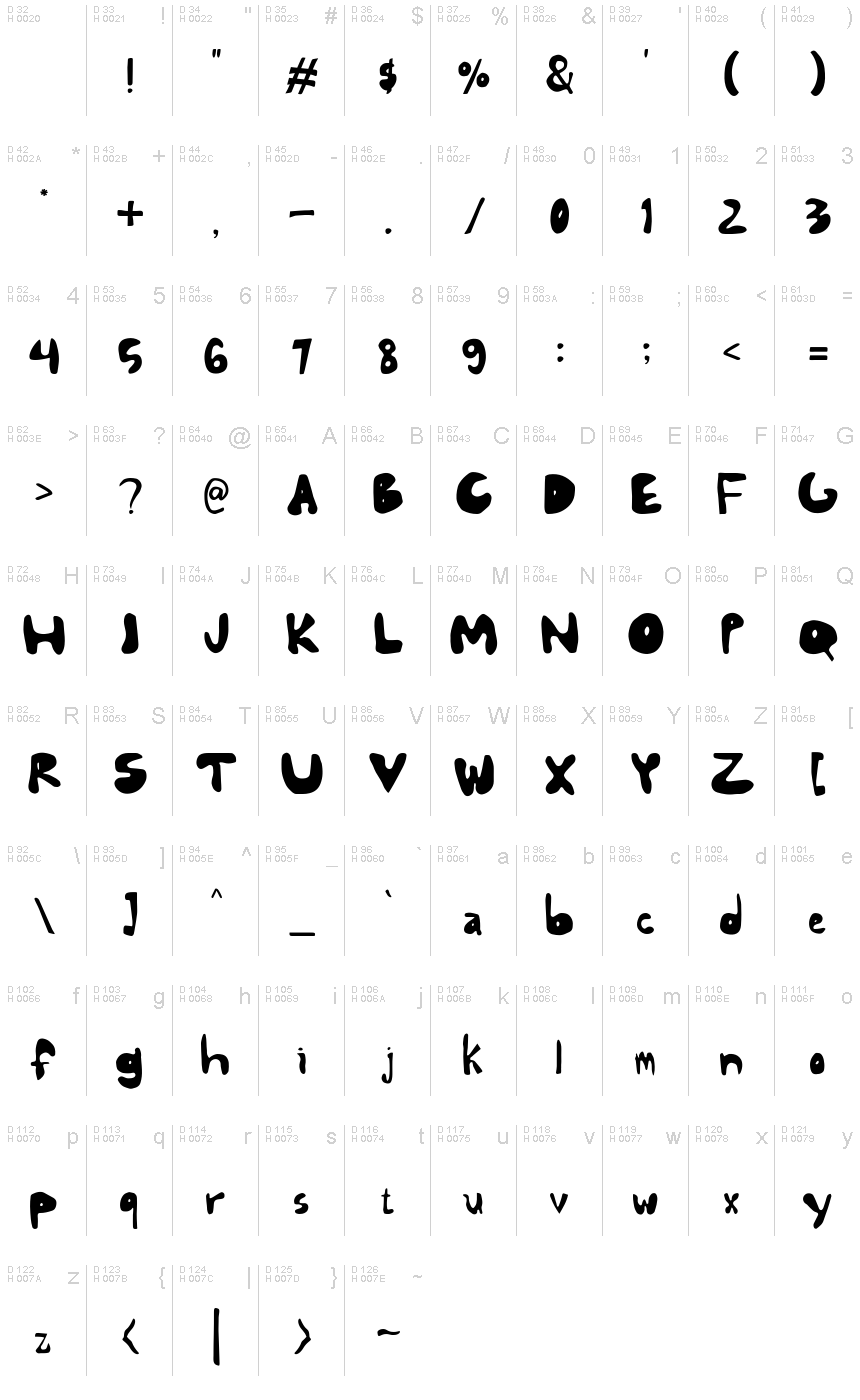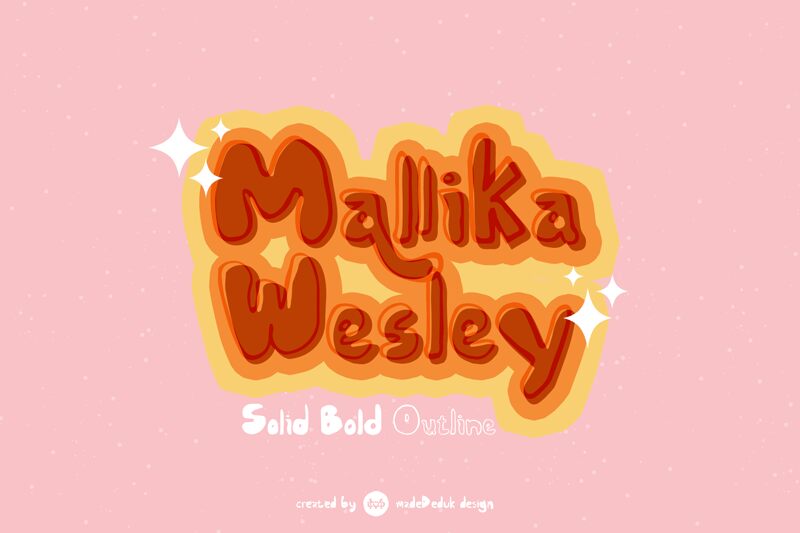
Mallika Wesley Demo Regular
Mallika Wesley font by madeDeduk is a modern handwriting style font that is bold, cartoonish, and lively. The display typeface has an organic casual outlook with expressive vibes that will lighten up the mood of any design into which it’s integrated. It’s created for readability with slightly rounded letters all of which are either loops or partially connected to give a feel close to cursive handwriting.